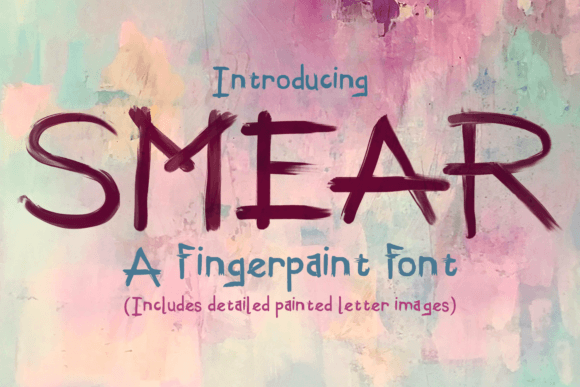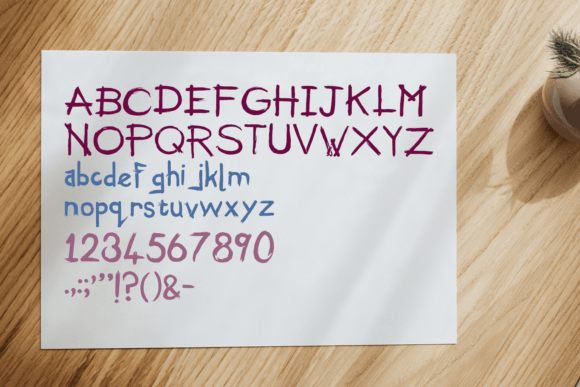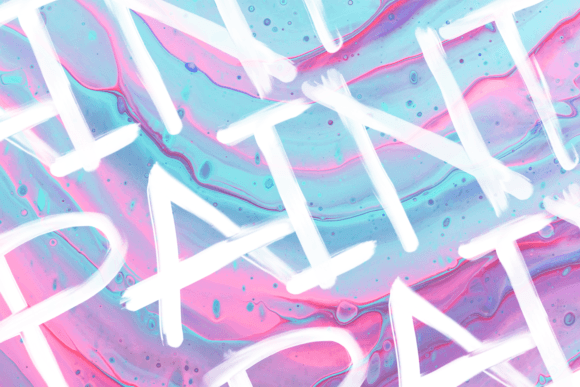
About Smear
Advertise your art classes and create posters that look hand-crafted with Smear. Smear looks like a smudgy finger-painted font and is perfect for a wide range of quirky designs.